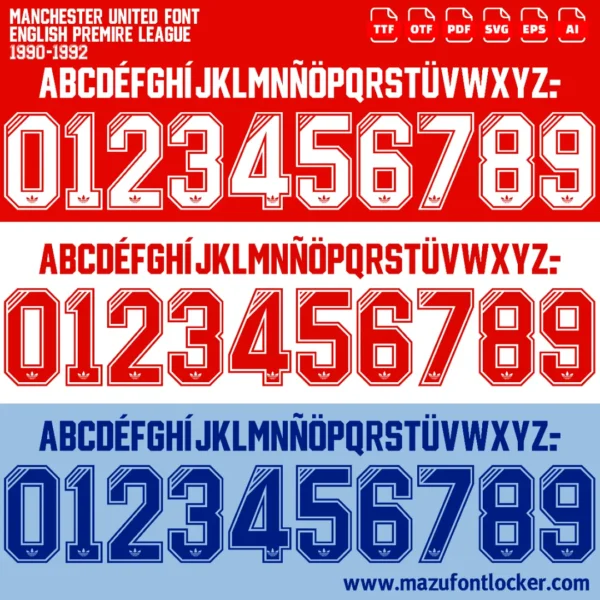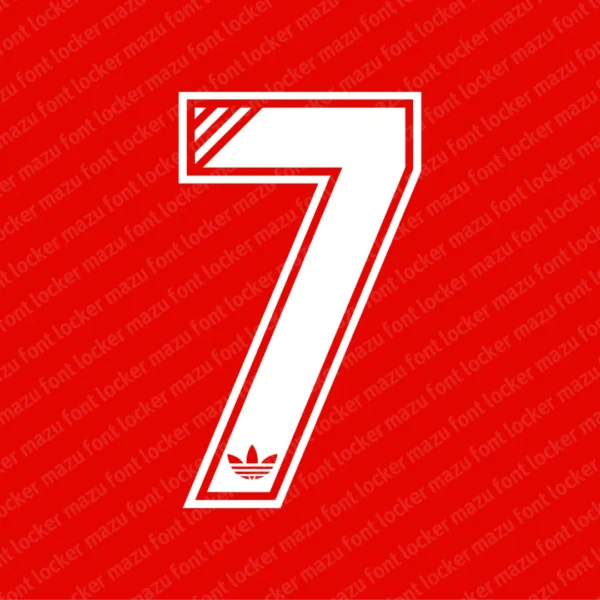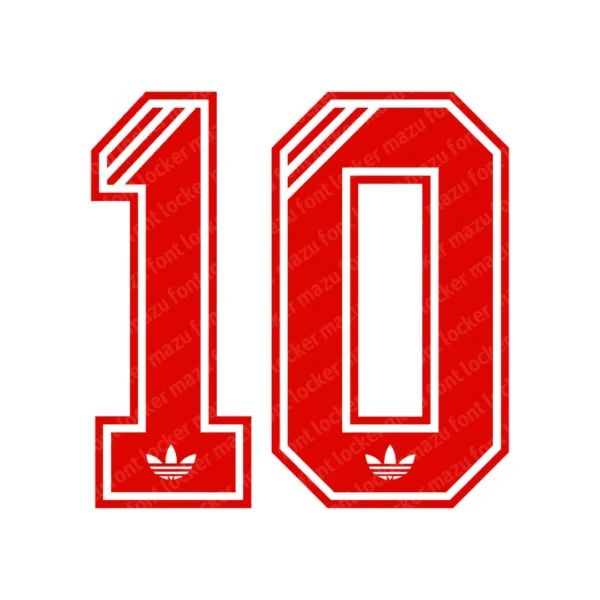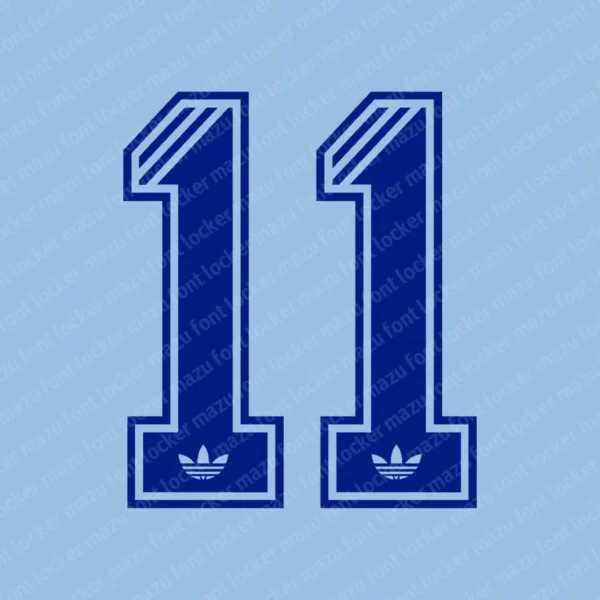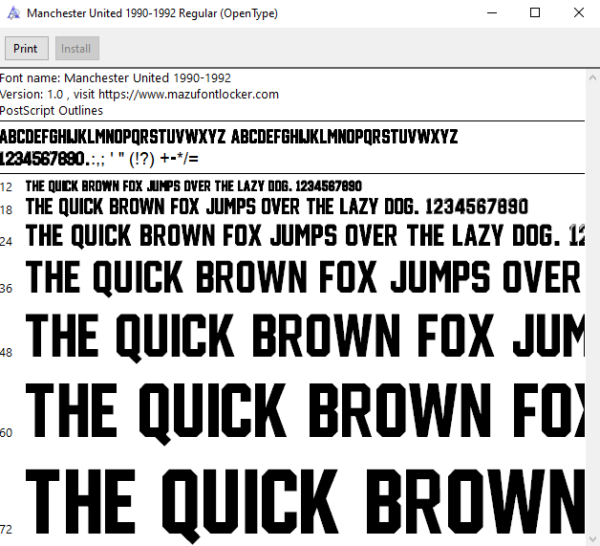
Manchester United 1990-1992 Font Vector – Epic Old Trafford Red Devils Classic
This premium font captures the bold, fierce, and championship-driven typography that perfectly embodies the spirit of the Red Devils — delivering pure English fire, relentless ambition, warrior-like determination, attacking flair, and the legendary football culture that transformed Manchester United into one of Europe’s most feared and celebrated football giants.
Manchester United 1990-1992 Font Vector – Stunning Red Devils Classic Typeface
The Manchester United 1990-1992 Font Vector is a premium typeface that accurately recreates the official match lettering worn by Manchester United during the iconic 1990-1992 era. This high-quality vector font kit captures the bold, legendary, and historic typography that defines one of the greatest periods in the club’s history under Sir Alex Ferguson.
Designed for professional designers, football enthusiasts, and Manchester United supporters, the Manchester United 1990-1992 Font Vector delivers authentic results for jersey mockups, fan merchandise, retro football projects, social media graphics, and matchday designs. It perfectly complements the legendary red kits worn by the Red Devils throughout the 1990-1992 campaign.
Why Choose Manchester United 1990-1992 Font Vector
This font stands out thanks to its faithful recreation of the official shirt lettering used by Manchester United during the 1990-1992 season. Every character has been carefully crafted to match the authentic player names and numbers seen on the pitch. Whether you are designing realistic kit concepts or creating football-themed artwork, the Manchester United 1990-1992 Font Vector delivers professional-quality authenticity.
The letterforms feature a clean, athletic, and powerful design that reflects Manchester United’s legendary status and Old Trafford spirit. The balanced proportions and sharp detailing provide excellent readability while maintaining the club’s passionate English identity.
The numerals are bold, classic, and highly recognizable, closely matching the official squad numbers used throughout the 1990-1992 season. The vector format ensures perfect scalability for both digital and print applications.
- Complete uppercase A–Z and numbers 0–9 in authentic Manchester United 1990-1992 style
- Multilingual Latin character support including diacritics
- Create authentic Manchester United 1990-1992 home and away jersey mockups
- Design stunning football posters, squad announcements, and match graphics
- Produce custom Manchester United-inspired merchandise
- Includes accurate crest glyph positioning for realistic jersey customization
Manchester United 1990-1992 Season
The 1990-1992 period was a golden era for Manchester United. With the arrival of Sir Alex Ferguson’s revolution, the club won the European Cup Winners’ Cup in 1991 and laid the foundation for the dominance that would follow. Stars like Bryan Robson, Mark Hughes, and a young Ryan Giggs delivered thrilling performances at Old Trafford, embodying the never-say-die spirit of the Red Devils.
The Manchester United 1990-1992 Font Vector is an independently designed typeface package created to replicate the official shirt lettering style used by Manchester United during the 1990-1992 season. It is ideal for retro football projects, jersey customization, fan artwork, historical recreations, and sports design work.